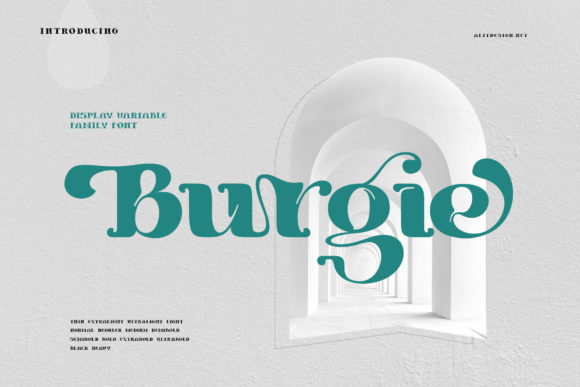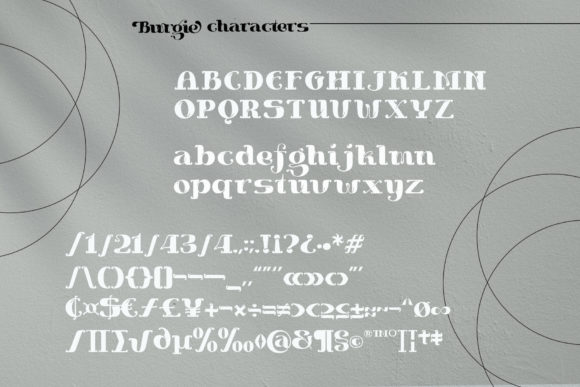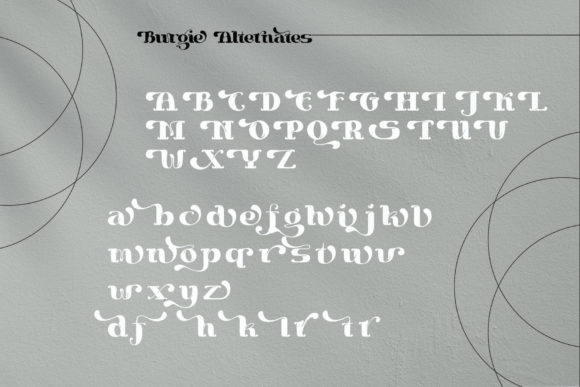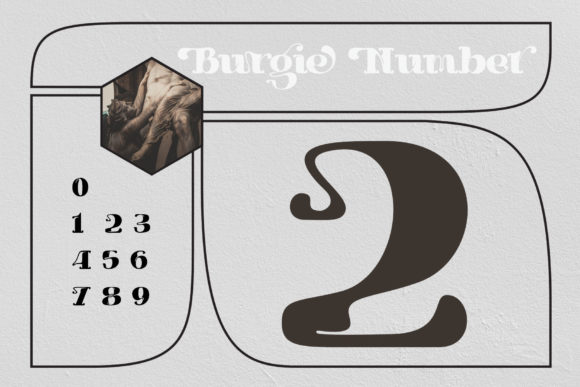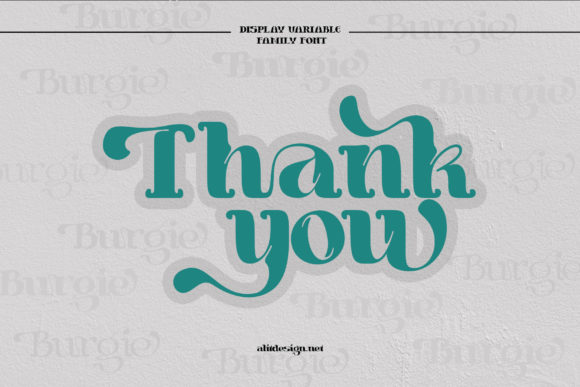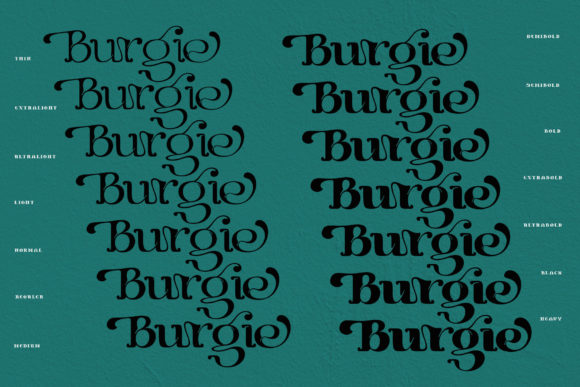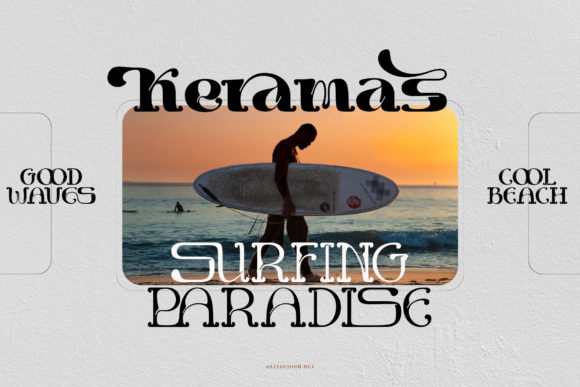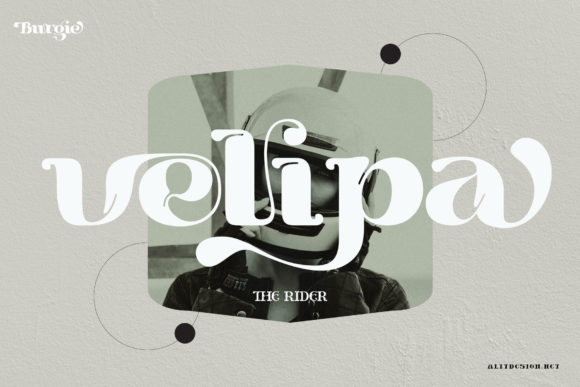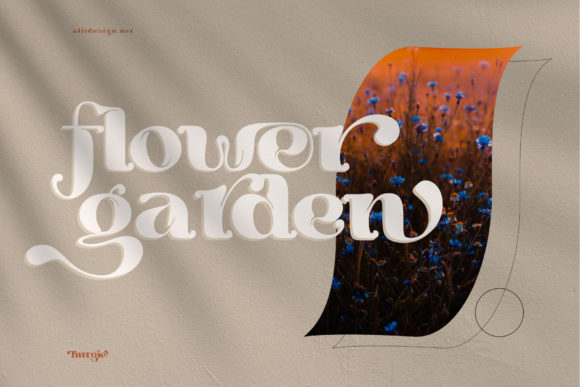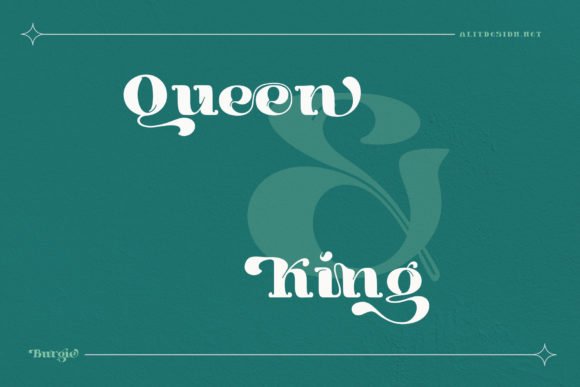
Burgie
Burgie: A Simple and Modern Slab Serif Font
Burgie is a simple and modern slab serif font that combines unique and decorative design elements. This versatile typeface is perfect for various applications, from logo designs to brochures.
Key Features of Burgie
• Simple Design: Offers clean and refined letterforms.
• Modern Style: Brings contemporary appeal to designs.
• Decorative Character: Features unique artistic elements.
• Versatile Application: Adapts well to various design contexts.
Best Uses for Burgie
Thanks to its versatile characteristics, Burgie works especially well for:
When using Burgie in your designs, keep these tips in mind:
• Try it for headlines or display text to showcase its decorative style.
• Use different sizes to highlight its modern features.
• Let its simple character enhance creative projects.
• Take advantage of its versatility for various applications.
To sum up, Burgie is an excellent choice for designers seeking a simple and modern slab serif font with decorative flair. Its versatility makes it perfect for a wide range of projects. Whether you’re creating logos, designing magazines, or developing social media content, Burgie offers the perfect blend of simplicity and unique style.
Furthermore, Burgie’s distinctive design allows it to shine in contexts where both modernity and creativity are key. For instance, from brochures to display typography, this font can elevate your projects with its refined style. Also, its simple yet decorative appearance works particularly well in designs that aim to make a contemporary impact.
In conclusion, Burgie truly captures the essence of modern simplicity in slab serif typography. Its versatility across different applications shows how well it can serve various creative needs. Therefore, for those wanting to add a touch of decorative sophistication to their work, Burgie can enhance any design with its distinctive style. Ultimately, it’s perfect for designers aiming to make a simple, modern impact across a wide range of creative projects.